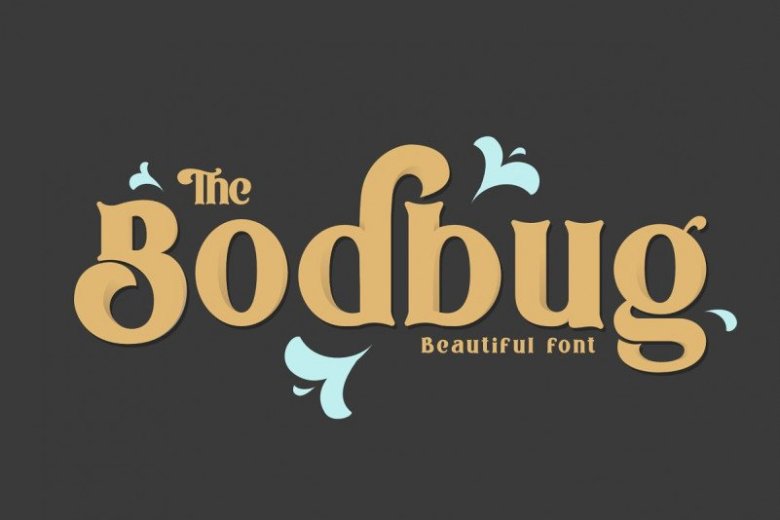
The Bodbug Typeface
Thank you for looking The Bodbug Font. It’s as a strict san-serif font, but the ligature feature makes this font beautiful and classy. Bodbug Typeface makes your project design easier. This font are the right choice when you need it for a logo or cafe display project, fonts for magazine content, wedding card invitations and more. The Bodbug Font elegant retro, which combines retro 70 style with balloon typography combined with simple Serif and modern elegance, bodbug is equipped with full features, in each letter there are attractive alternatives and additional bonuses, which make you feel young to realize the design you want. so what are you waiting for?